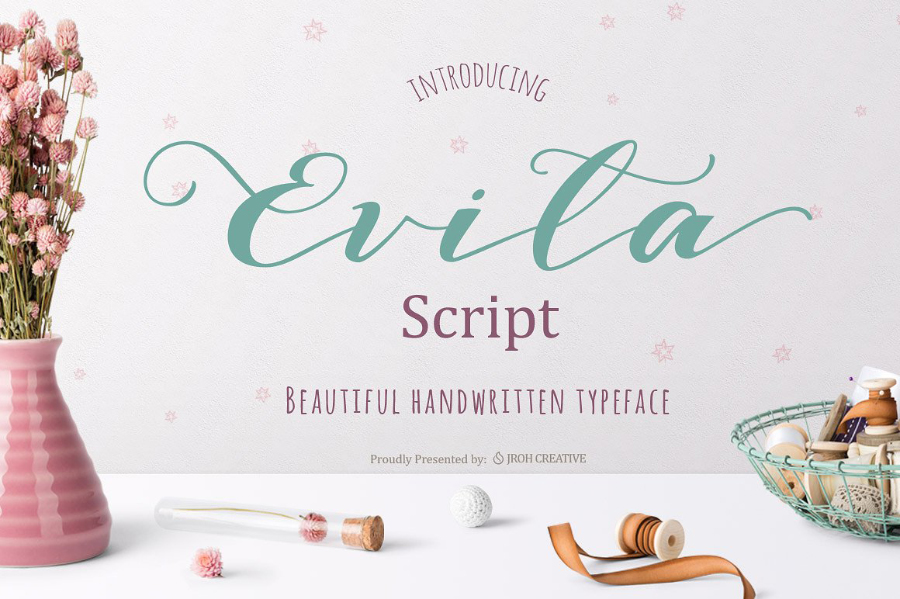
Evita Script Font
Start the week with a beautiful handwriting. I believe you will love it, and use it for your work more beautifully. Introducing Evita Script Font! Evita Script designed and shared by JROH Creative. Evita Script handwritten nib pen with beautiful characters, smooth, chic, and simple as it is. Evita Script suitable for your creative project like DIY blogger, wedding, t-shirt, poster design, quote, logo design, and everything that needs a touch of beauty in it.